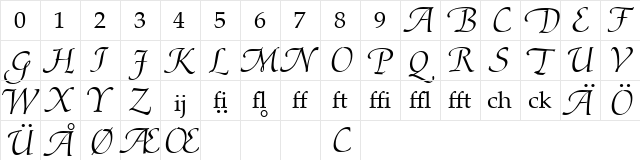
Palatino Profi Regular
Design Context for Palatino Profi Typeface
Palatino Profi offers clean, dependable letterforms without strong stylistic allegiance, making it a practical choice for designers who need flexibility.
Pro Tip: Use Palatino Profi in both headline and body roles to test its range before committing to a single application.